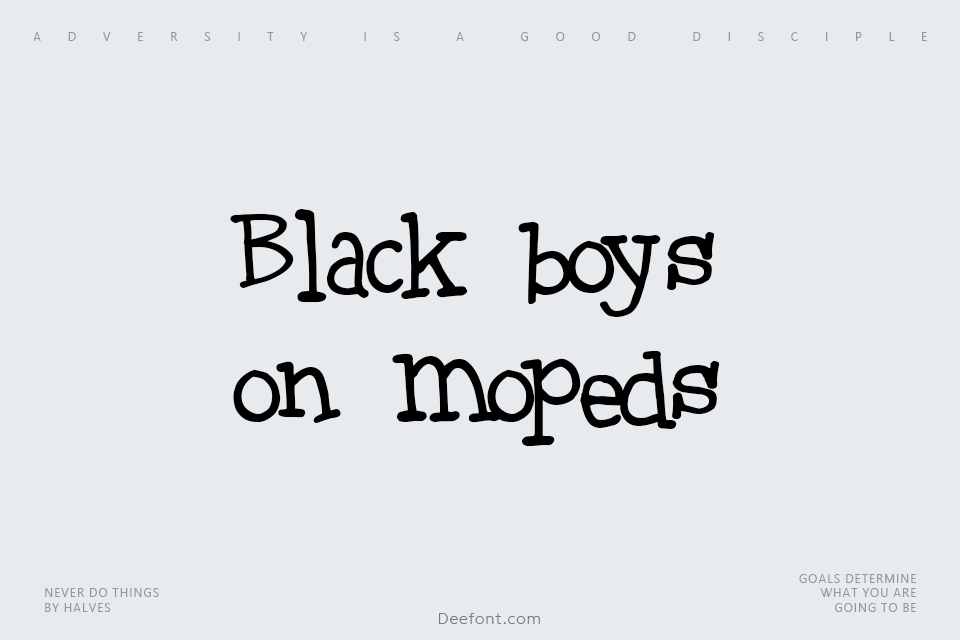
Black boys on mopeds Font
Black boys on mopeds is a bold and expressive display font created by Jakob Fischer (PizzaDude) that features intricate details including sharp apexes, rounded bowls, and elegant bilateral serifs. This versatile typeface perfectly balances classic and progressive styles with its strong stems, defined spurs, delicate hairlines, and graceful curves. The font’s expressive character makes it ideal for comic-inspired designs, creative posters, playful branding, and eye-catching display applications where a quirky yet friendly appearance is desired.
Designed by:Jakob Fischer (PizzaDude)Website